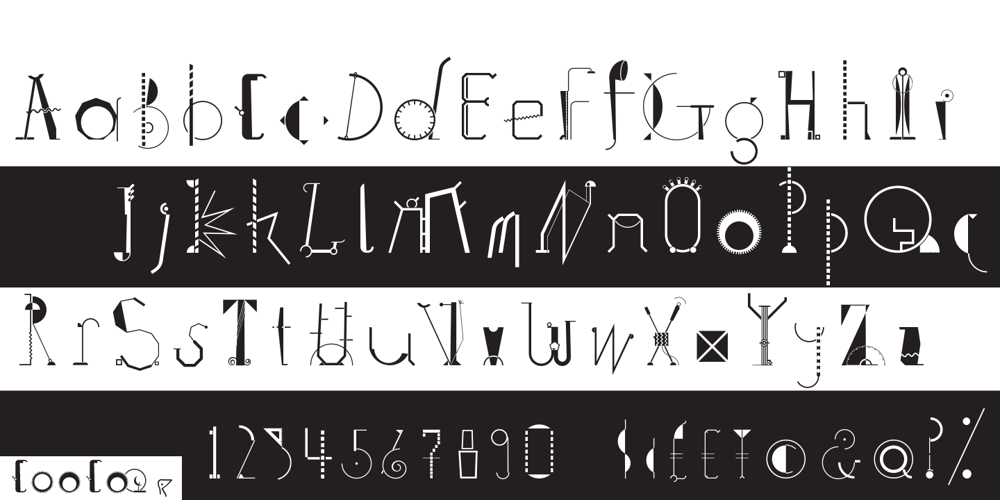
Coo Coo
Coo Coo font
Coo Coo Font Family was designed by Tim Barnes and published by chicken. Coo Coo contains 1 styles and family package options. So I made five rather odd characters for a logo for a friend… Then I thought I’d fill a couple of spare hours expanding it to a single alphabet… And some considerable time later I ended up with a whole font with full punctuation, a bunch of alternates, pretty broad international support and some OpenType features to keep things varied… There are elements of Art Deco, Art Nouveau, Lego, circuit boards and Ceefax, Memphis lamps and lab clamps, hieroglyphs, googly eyes and who knows what else… Intricate, insane, highly irregular, but somehow it hangs together… Throw down a few letters nice and big when the fancy takes you…